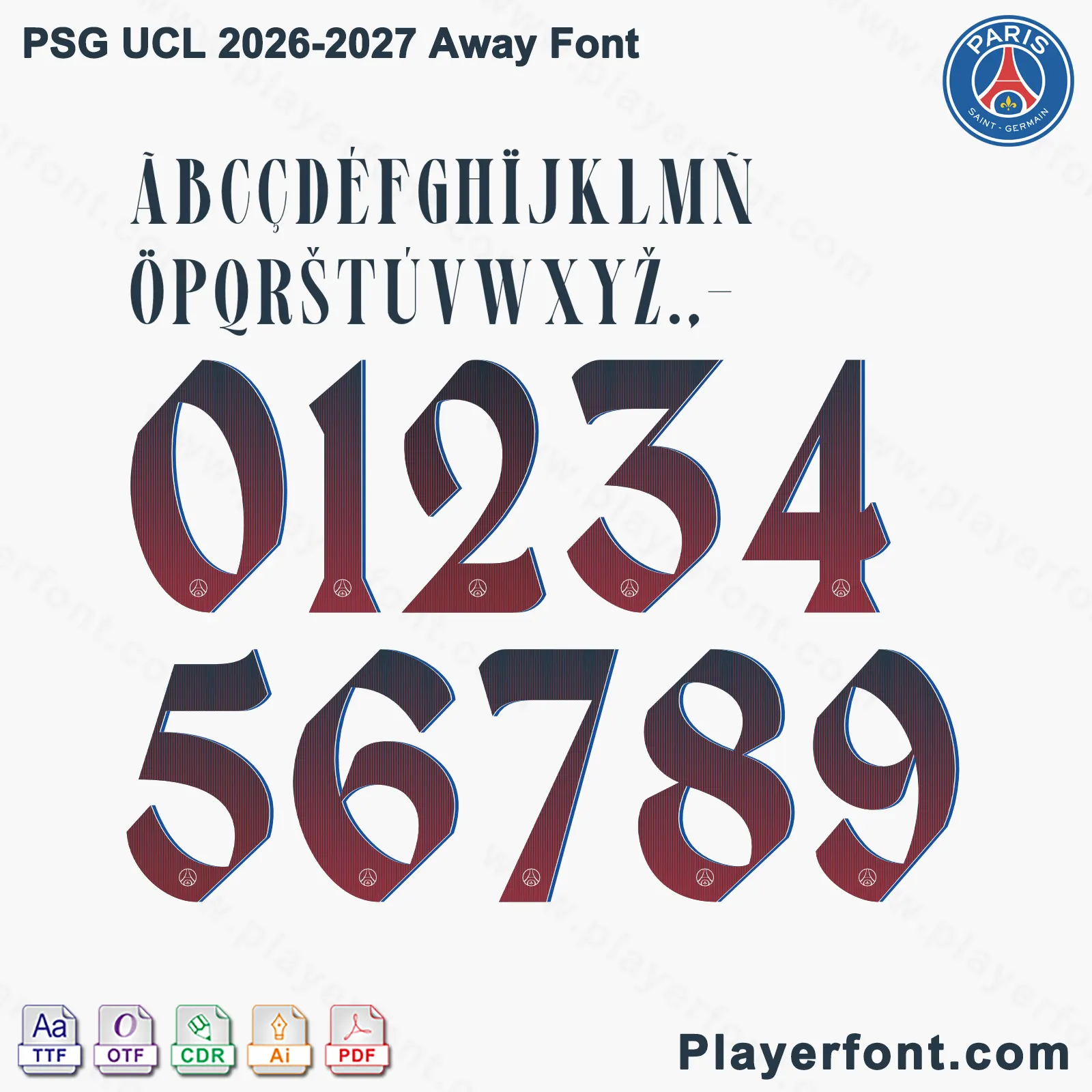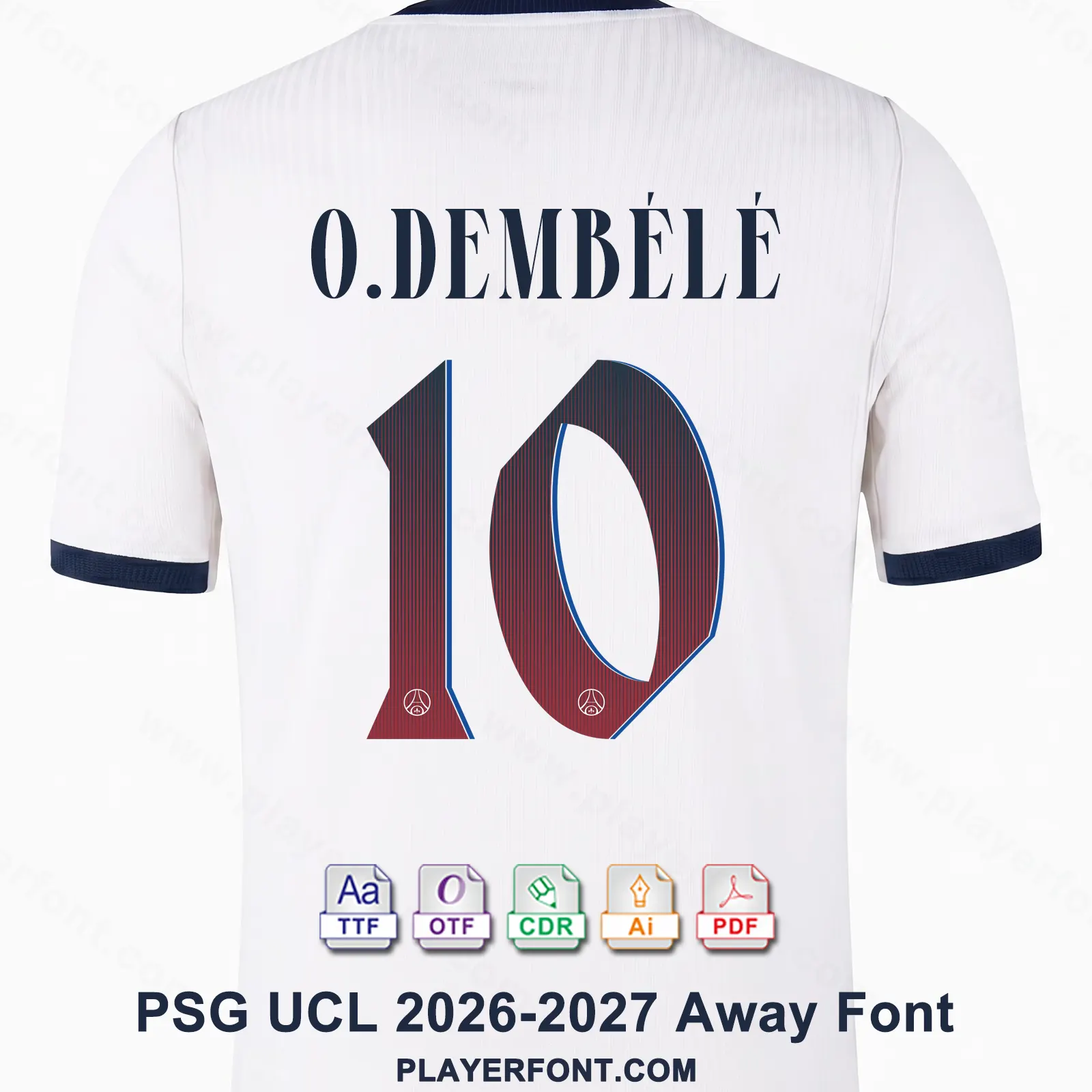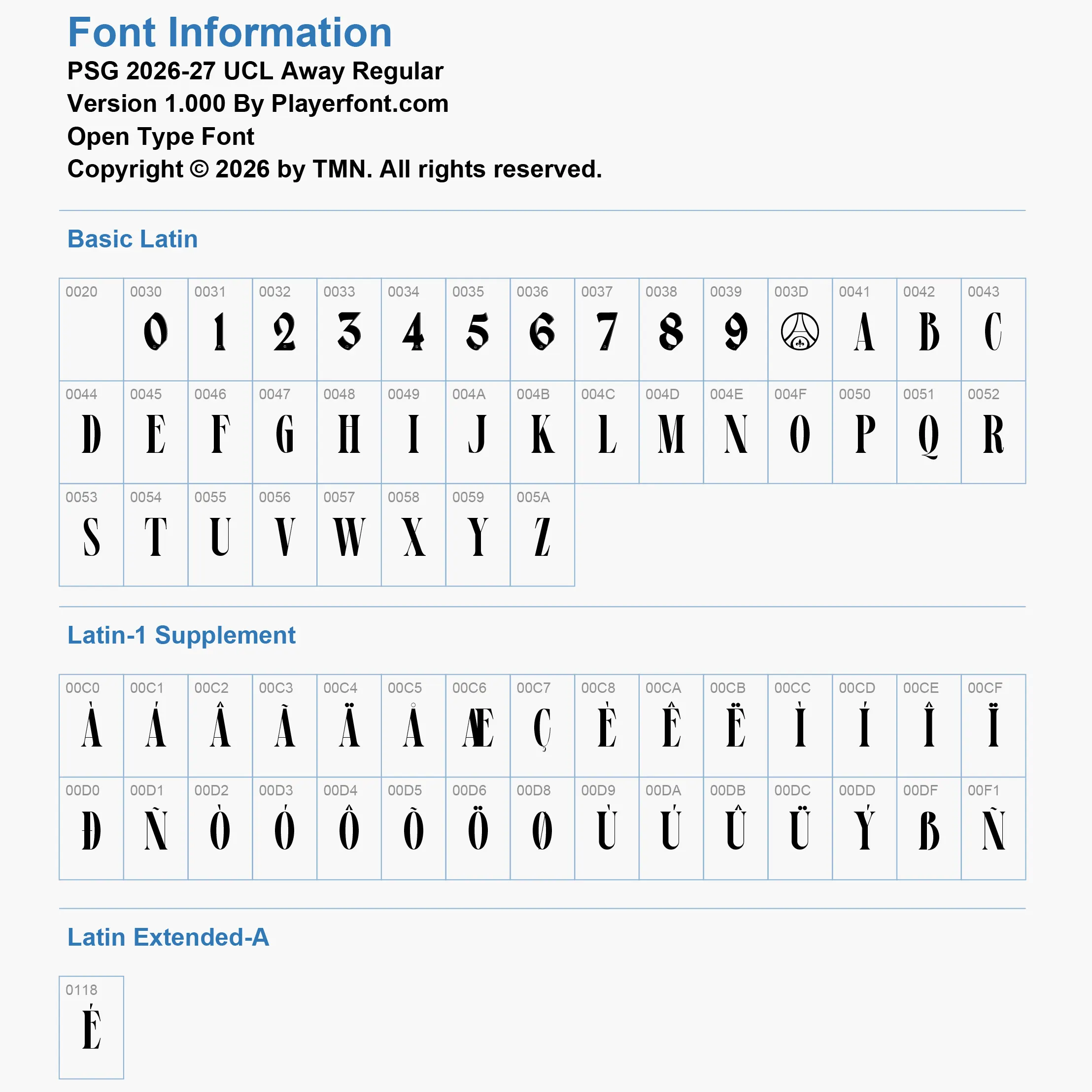
Elevate your sports jersey mockups, football custom graphics, and vector apparel printing projects with the high-quality PSG UCL 2026-2027 Away Font Download. Masterfully engineered by Playerfont.com, this high-performance typography set replicates the official-style numbers and distinct lettering featured on the pitch for Paris Saint-Germain’s European tournament campaigns.
Key Typography Features & Character List:
This typography pack is fully optimized to support international player rosters and diverse numbering layouts:
- Elegant Serif Custom Layout: Contains a sharp, sophisticated condensed serif uppercase character set, clean block letters, numbers (0-9), hyphens, and periods.
- Advanced International Accent Support: Includes an expansive set of diacritics spanning Latin-1 Supplement and Latin Extended-A (such as À, É, È, Ë, Î, Ñ, Ö, and Ů) ensuring flawless rendering for global football stars and specific French naming requirements (such as O. Dembélé, etc.).
- Authentic Visual Details: The jersey numbers feature an artistic red-to-dark-navy vertical line gradient texturing, wrapped in a bold dual blue-and-white border accent with the signature Paris Saint-Germain club crest outline subtly embedded at the base of each digit.
| Design Feature | Vertical Pinstripe Gradient Texture with Eiffel Tower Crest Base |